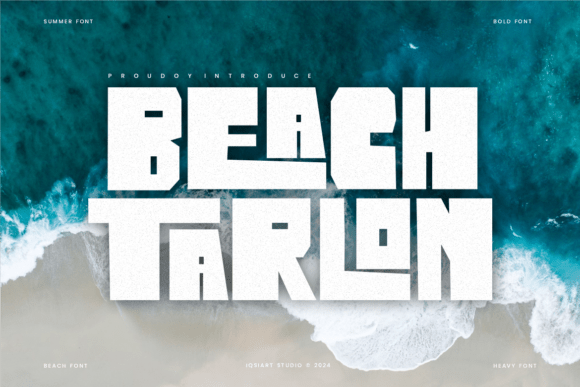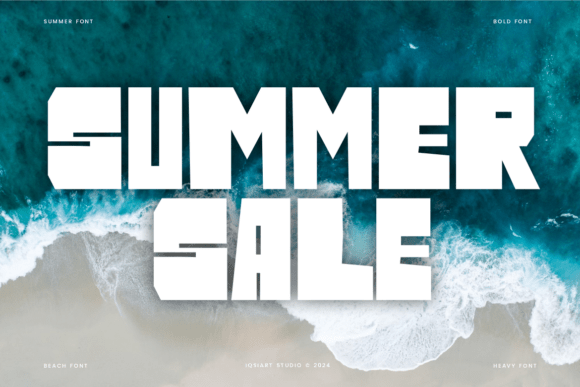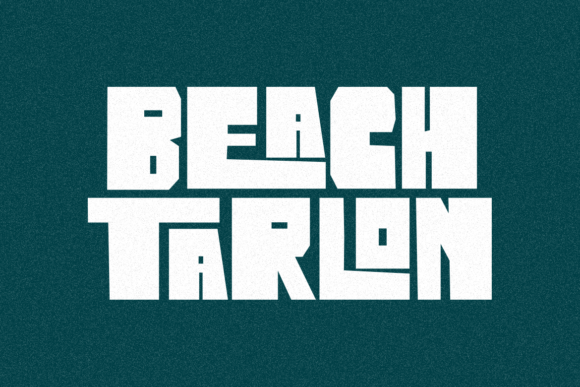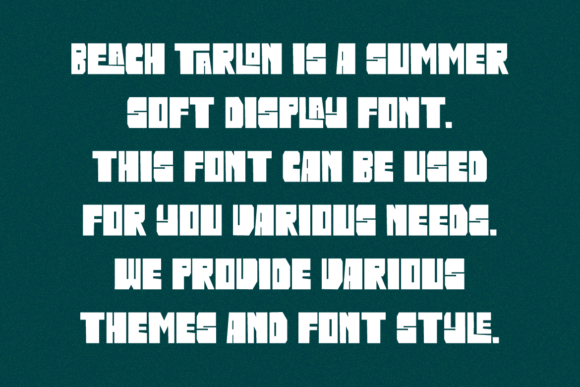
Beach Tarlon Font
About the Beach Tarlon Font
Presenting Beach Tarlon Font, a unique and stylish typeface that will make your work stand out. Beach Tarlon is a striking and heavyweight display font inspired by the raw energy of ocean waves and sandy shores. With its bold, blocky structure and textured details, this font exudes a rugged yet playful summer vibe. Perfect for beach-themed designs, branding, posters, headlines, and adventure-inspired projects, Beach Tarlon brings a powerful and stylish touch to any creative work.
Beach Tarlon Font Usage Examples
Beach Tarlon Font Example